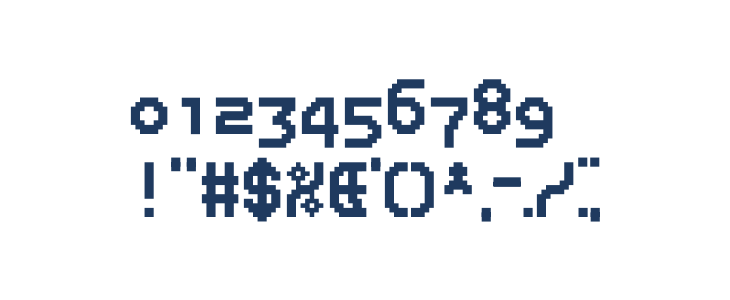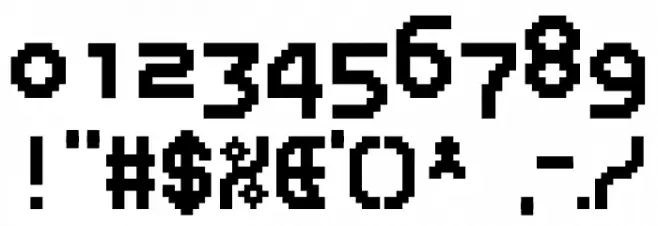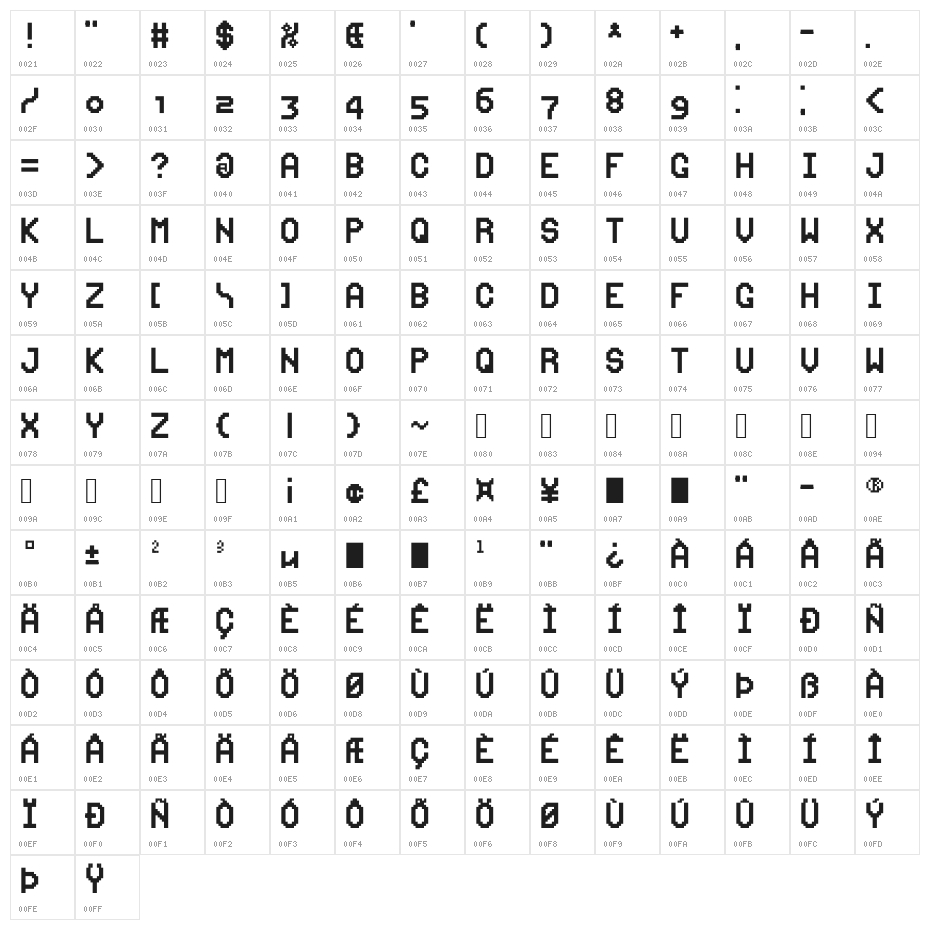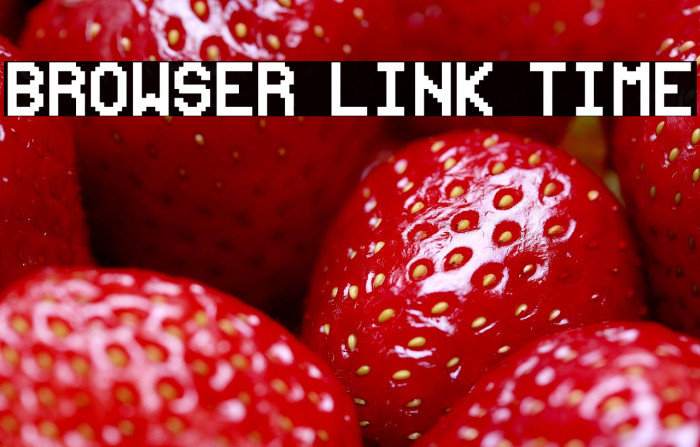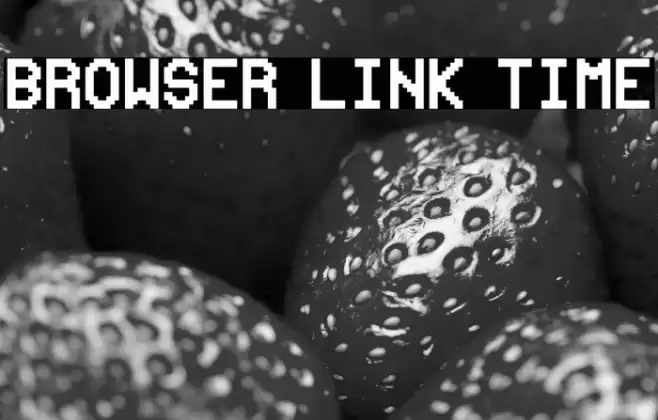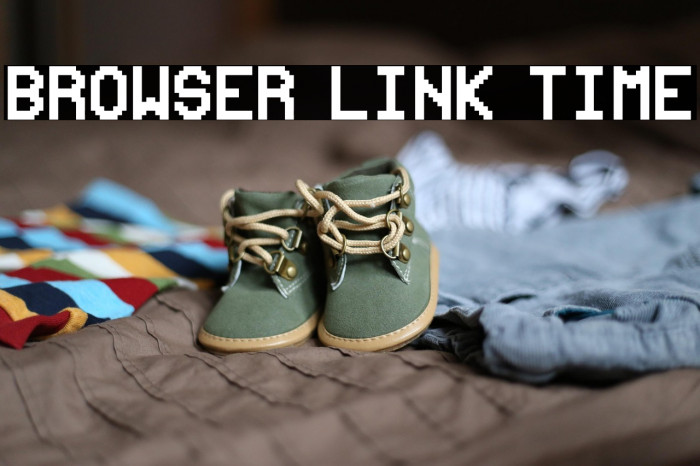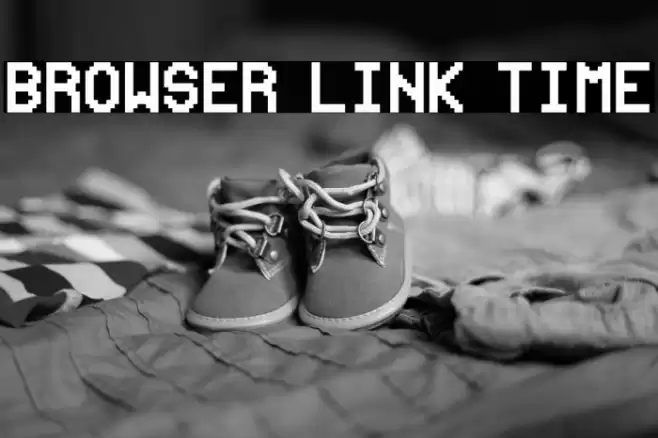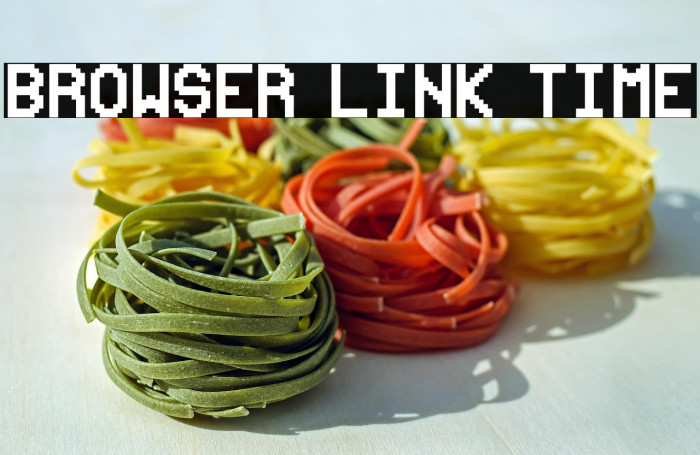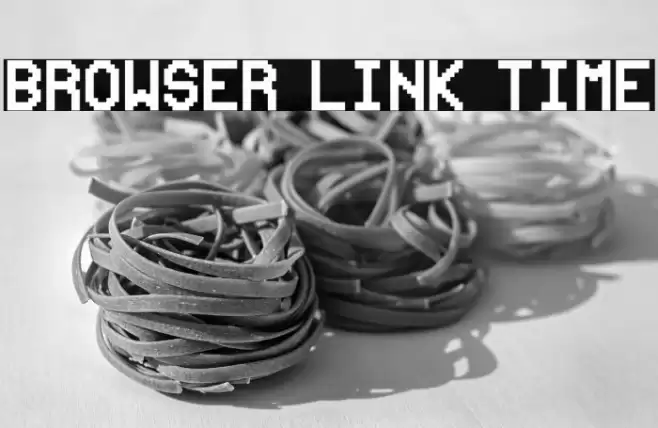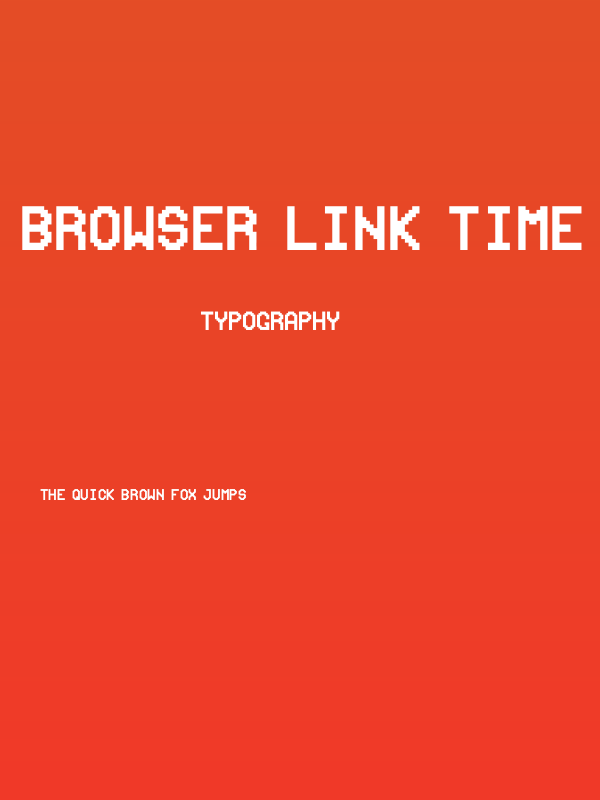
Browser link time Font
Browser link time Description
This font features a bold, pixelated design reminiscent of classic video game typography. Each character is constructed with a blocky, grid-like appearance, giving it a distinctly retro and digital feel. The uppercase and lowercase letters maintain a consistent height, enhancing readability and uniformity. Numbers and special characters follow the same pixelated style, ensuring a cohesive look across all glyphs. The font's geometric structure and sharp edges make it ideal for projects that require a nostalgic or tech-inspired aesthetic. Its simplicity and clarity are well-suited for digital displays, gaming interfaces, and retro-themed designs.
| Use Case | Headlines, Logos, Digital displays |
| Proposed Projects | Ideal for video game design, digital displays, retro-themed graphics, and tech-inspired branding. |